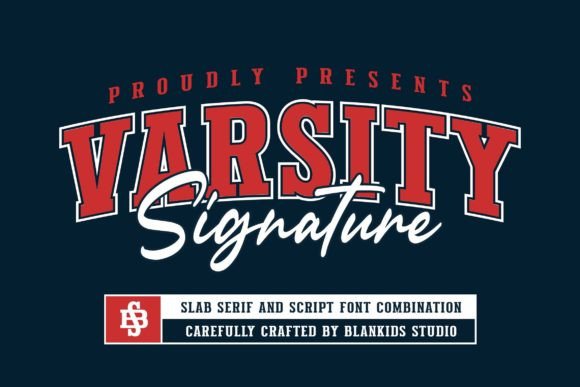
10 Best Display Font Selections for Your Next Creative Project
In the world of graphic design, your choice of typography acts as the silent voice of your brand. Whether you are crafting a high-impact social media graphic, designing a stunning book cover, or building a brand identity from scratch, the right Display Font can turn a mediocre layout into a visual masterpiece. These specialized typefaces are engineered to grab attention, convey personality, and establish a distinct mood that standard body text simply cannot achieve.
Why You Should Use a Display Font in Your Branding
A well-chosen typeface is more than just readable text; it is a structural element of your visual narrative. Using a high-quality option from this group allows you to set the tone immediately. Because these typefaces are typically designed with unique features—such as exaggerated serifs, playful bubbles, or sporty geometry—they serve as focal points. In branding, consistency is vital, and integrating a specific style helps anchor your visual components across all marketing materials, ensuring your message is both memorable and professional.
Stay Chunky
Meet Stay Chunky, the typeface that refuses to tiptoe—it’s bold, heavy, and practically demands a seat at the design table. This is the ultimate choice for designers who want to stop users from scrolling past their headlines.
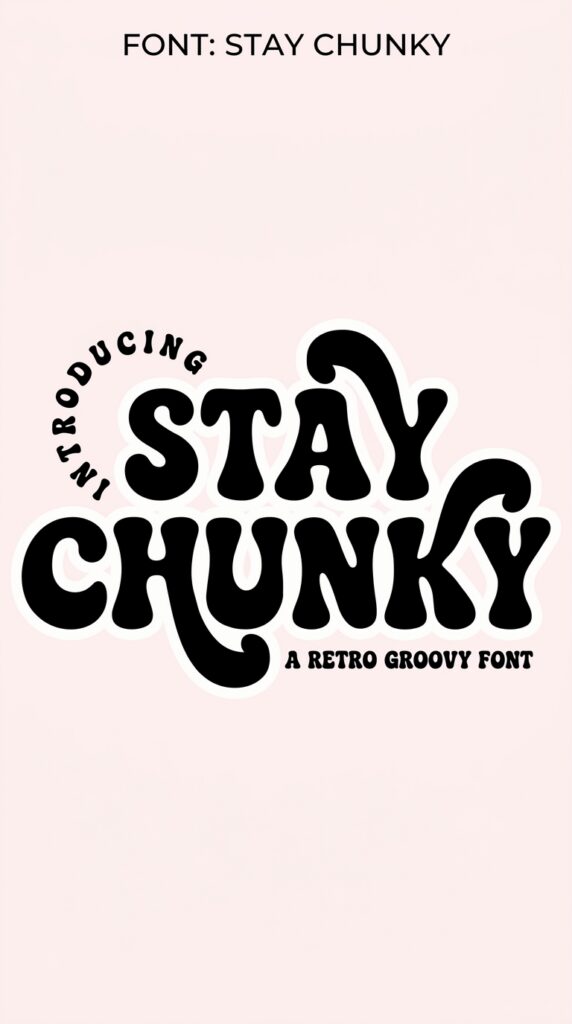
It is perfect for when your titles need a little extra junk in the trunk to stand out from the crowd. Whether you are working on event posters or urgent digital banners, this style ensures your message remains unmissable.
Stacked Chunky Display Font
Meet the Stacked Chunky, a total heavyweight champion for your branding that brings serious personality to any layout. Its layered aesthetic suggests depth and confidence, making it ideal for packaging and social media branding.
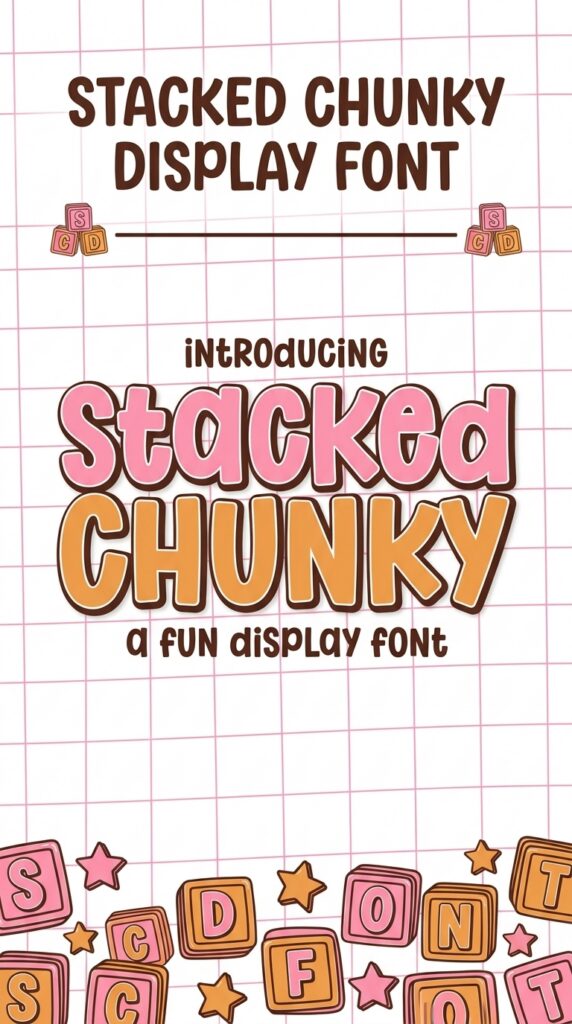
It is perfect for when you want your headlines to do the shouting for you, without the sore throat. This typeface is built to command attention in a busy marketplace where minimalism might otherwise get lost.
Cute Simple Display Font
Your designs will look so effortlessly charming that even the strictest deadline won’t be able to ruin your mood. This typeface is essentially a personality transplant in font form, bringing a clean, approachable vibe to your workspace.
Use this when you need warmth and accessibility. It works beautifully for lifestyle blogs, children’s book layouts, or invitation designs that need a friendly face.
Varsity Spirit – Display Font
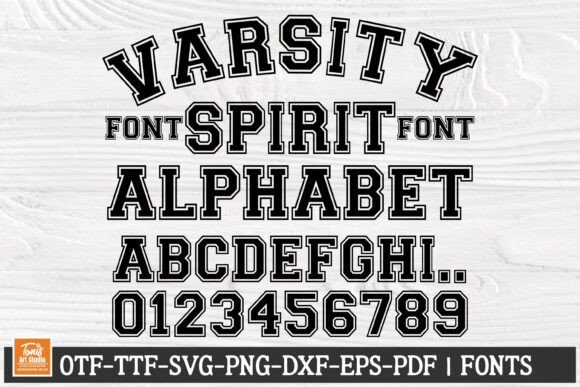
Channel your inner champion with Varsity Spirit, which brings more high-energy athletic vibes than a homecoming parade. This typeface is rooted in American sports culture, making it a fantastic choice for apparel or team announcements.
It is the perfect type choice when you want your designs to look like they’ve definitely earned a varsity letter. Its sharp, strong lines project intensity and team spirit.
Beautiful Smile
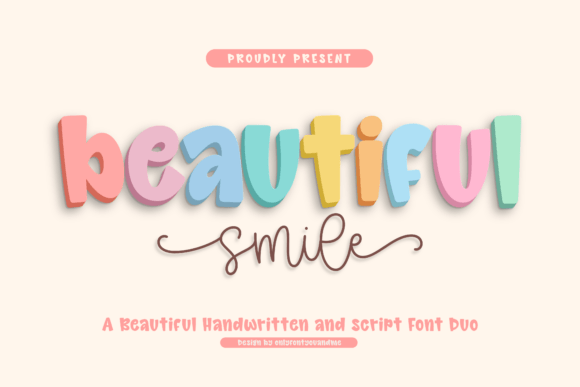
This delightful typeface, Beautiful Smile, is here to brighten up your typography even when your copy is feeling a bit grumpy. Its fluid, organic curves add a human element that is often missing from digital interfaces.
Perfect for adding a joyful aesthetic to your projects without any forced positivity. It feels authentic, inviting, and professional all at the same time.
Glossy Bubble
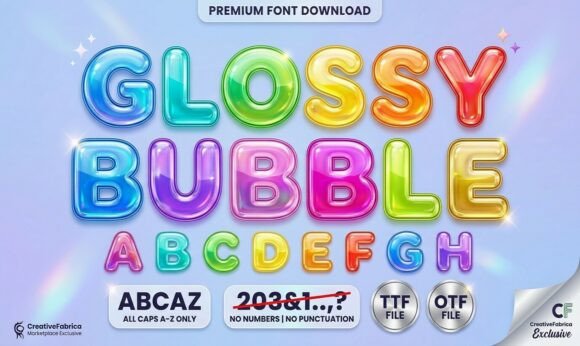
Add a pinch of playfulness to your projects with this 3D typeface that looks so squishy you’ll want to pop it. Finally, a style that brings the bubbly personality your designs were desperately missing.
This is a fantastic pick for creative branding that targets young audiences or those who appreciate a fun, tactile visual experience. It adds an immediate “pop” to any hero section of a website.
Playful Children Font
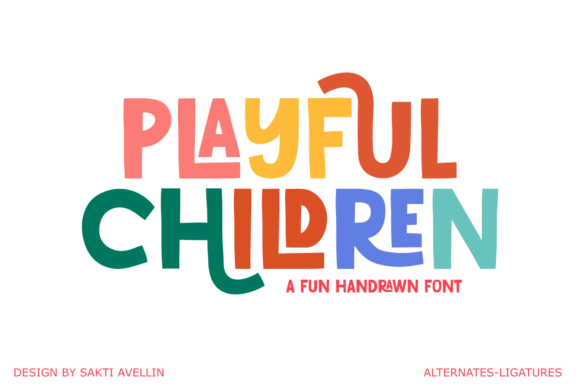
This whimsical typeface turns any school project into a masterpiece, even if your inner child is currently demanding coffee and silence. It is balanced enough for clarity but erratic enough to feel hand-drawn and sincere.
Add a dash of mischief to your typography with this delightfully playful option. It’s perfect for educational materials, greeting cards, and social media flyers that need a touch of innocence.
The Crafty Marie
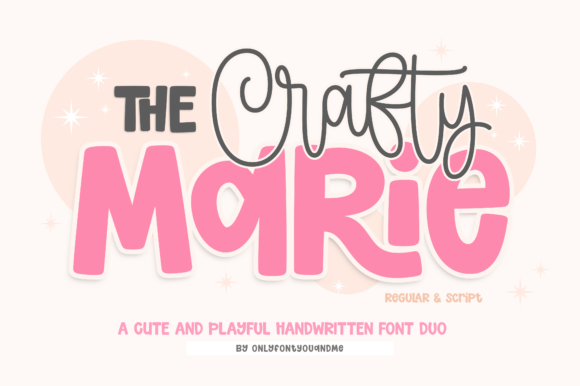
The Crafty Marie is a creative choice that adds so much personality to your projects, they start looking suspiciously talented. It leans into a boutique, artisanal aesthetic that screams quality and attention to detail.
Conclusion
Selecting the right typeface is an art form that directly impacts how your work is perceived. Whether you need something rugged for a sports brand or whimsical for a creative venture, the list above provides a curated path to success. Don’t be afraid to experiment with different weights and widths until you find the exact style that aligns with your vision. Every Display Font mentioned here has been chosen to help you communicate more effectively and leave a lasting impression on your audience. If you still crave more variety, feel free to browse our full catalog to find the perfect match for your next big idea.